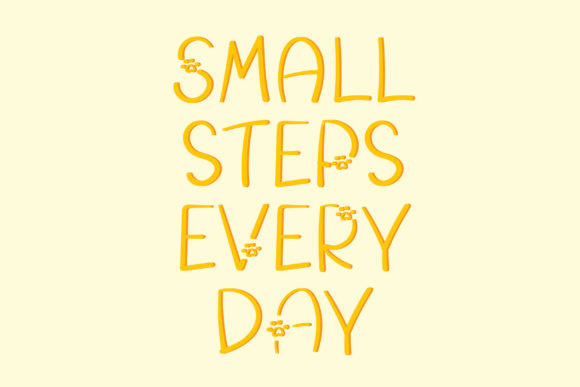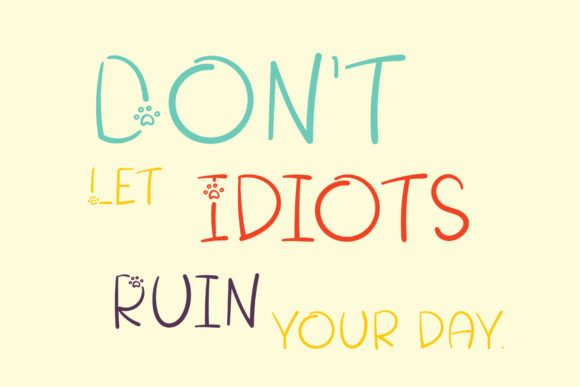
Mercy Font
Mercy is a sweet and simple display font. Its friendly feel makes this font incredibly versatile, fitting a wide range of contexts. Add it to your creative ideas and notice how it makes them stand out!